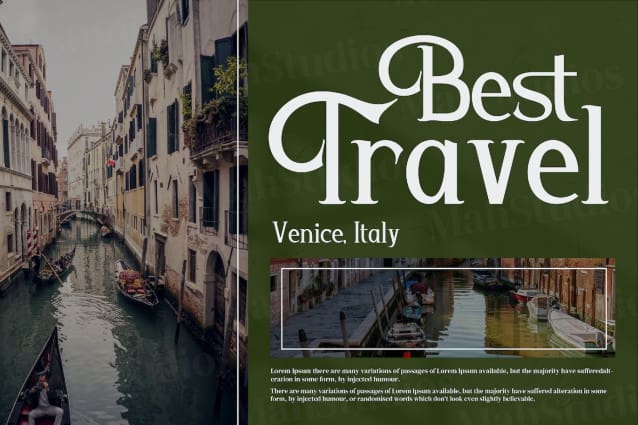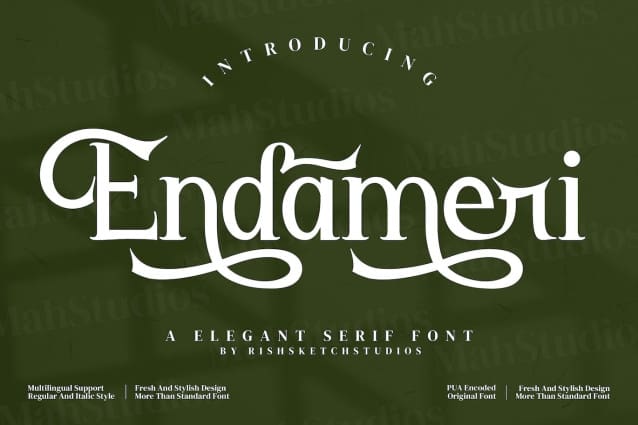
Endameri Font
Endameri Font – Modern Elegant Serif Font, from MAH Studios, is a premium Serif Font, perfect for any project that requires a distinctive, premium feel.